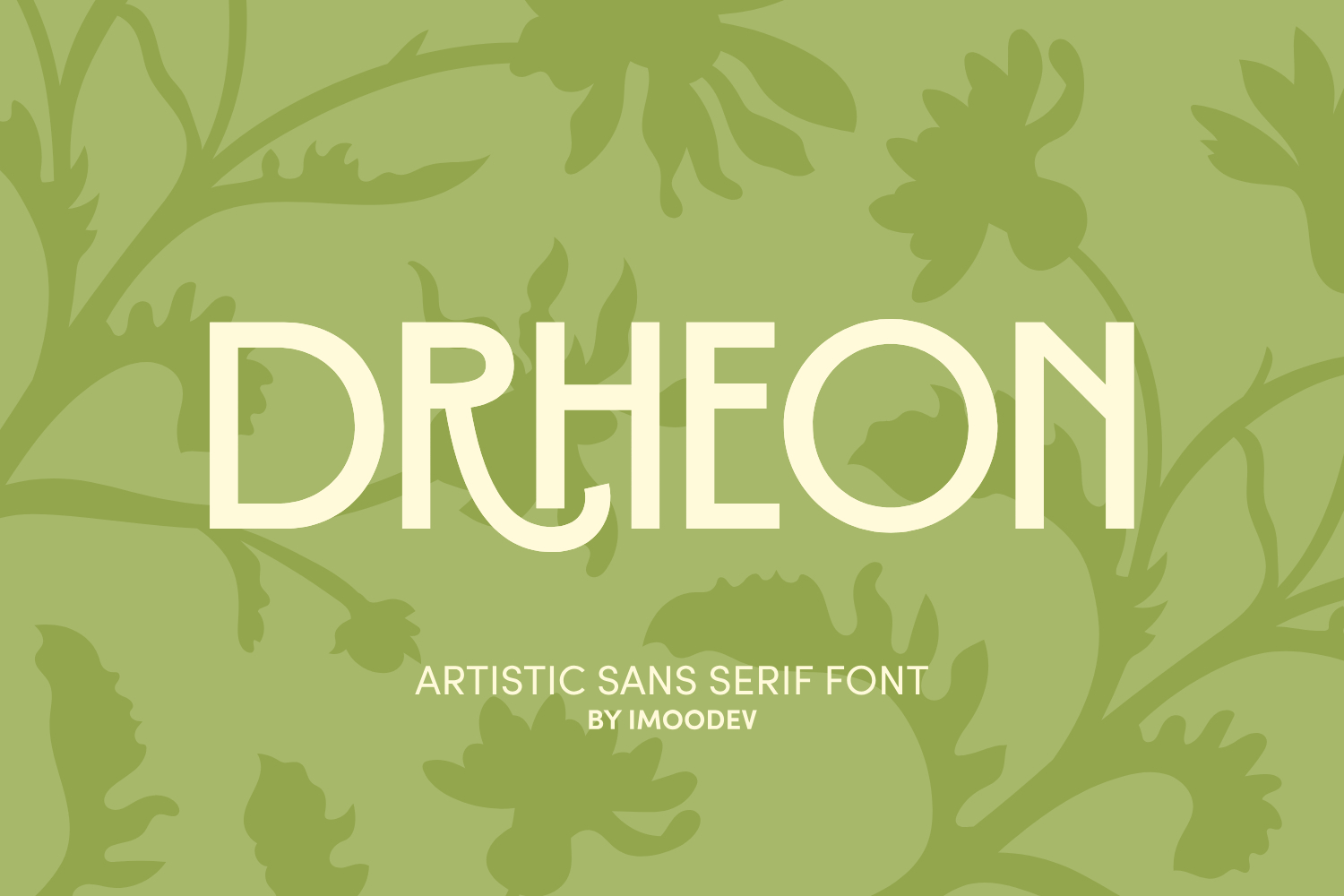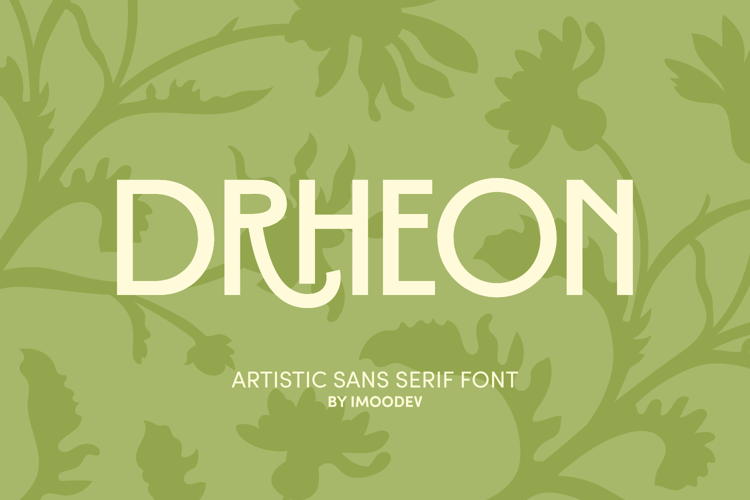
Drheon - Artistic Sans Serif
Drheon is an artistic sans serif typeface with a clean geometric structure is balanced with graceful curves. The letterforms are modern and minimalist, while select alternate characters introduce delicate ornamental strokes inspired by classic Art Nouveau and vintage editorial typography.
Drheon perfect for luxury branding, boutique logos, fashion editorials, perfume packaging, cosmetics, wedding stationery, skincare packaging, floral shop identities, boutique signage, and sophisticated social media graphics, Drheon delivers a quiet yet distinctive expression with timeless elegance.